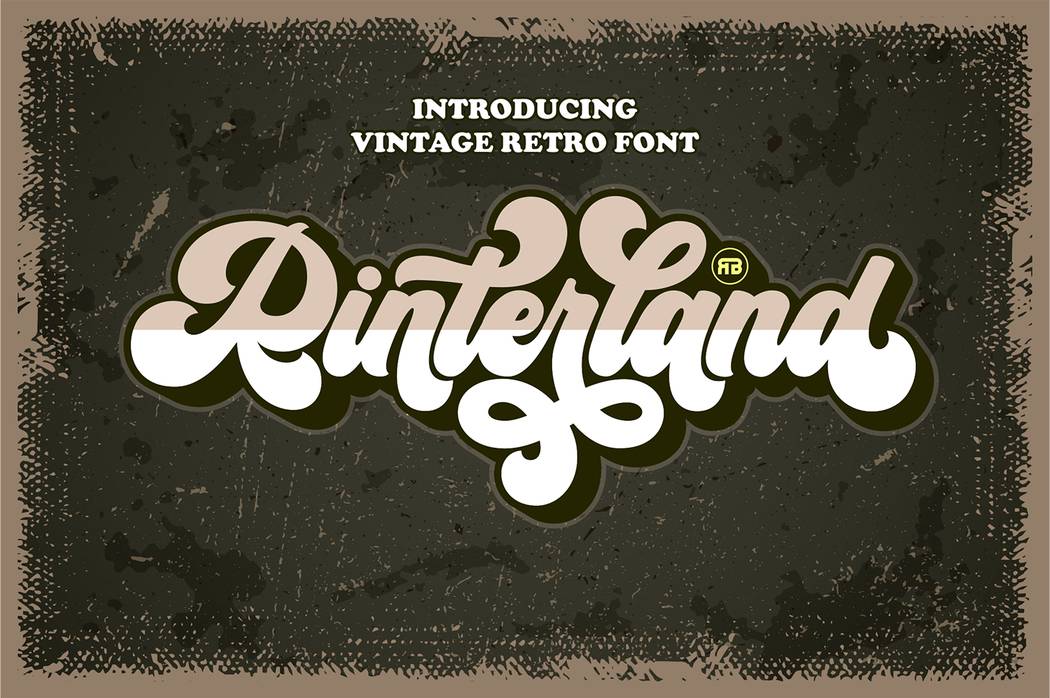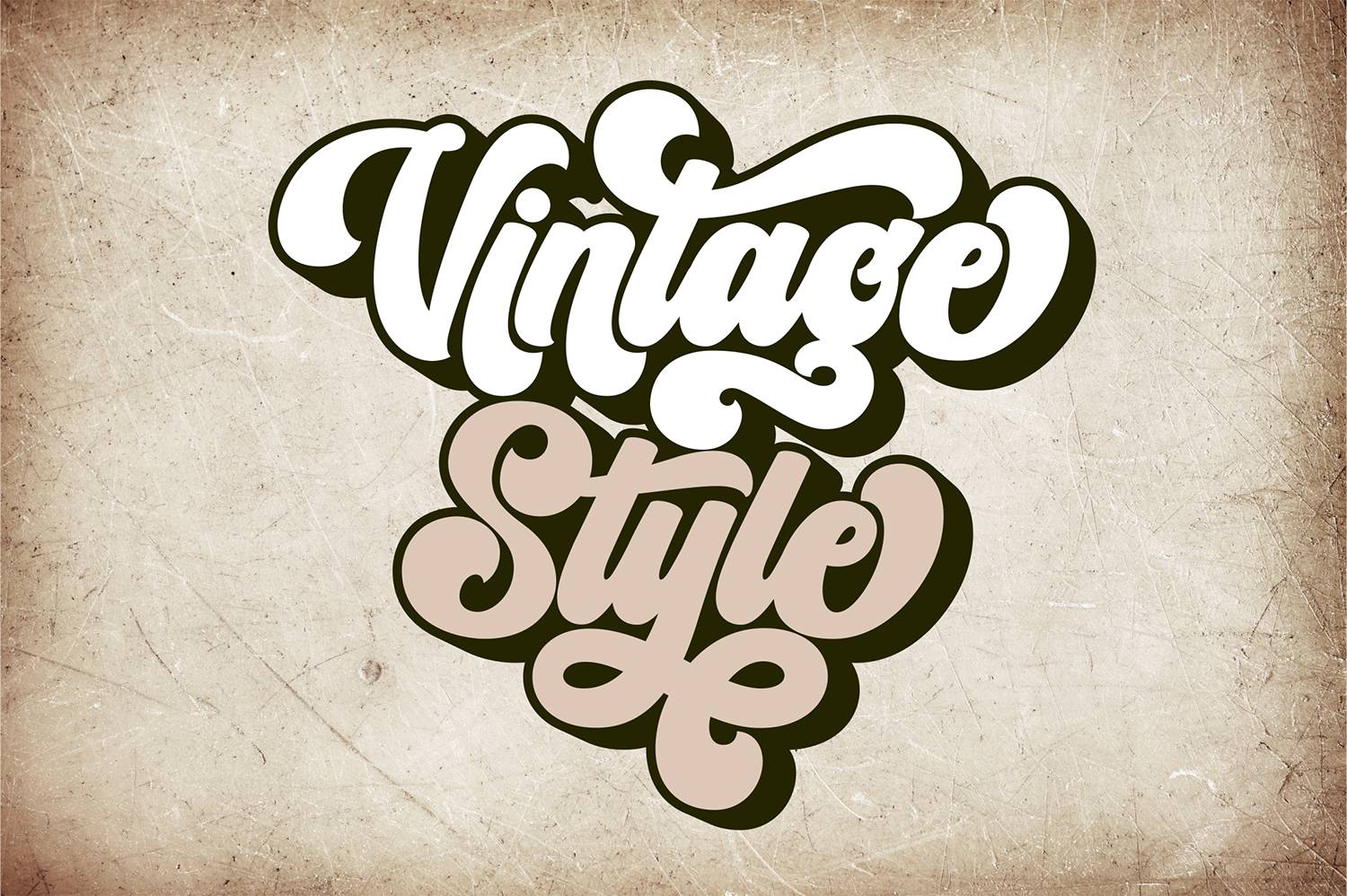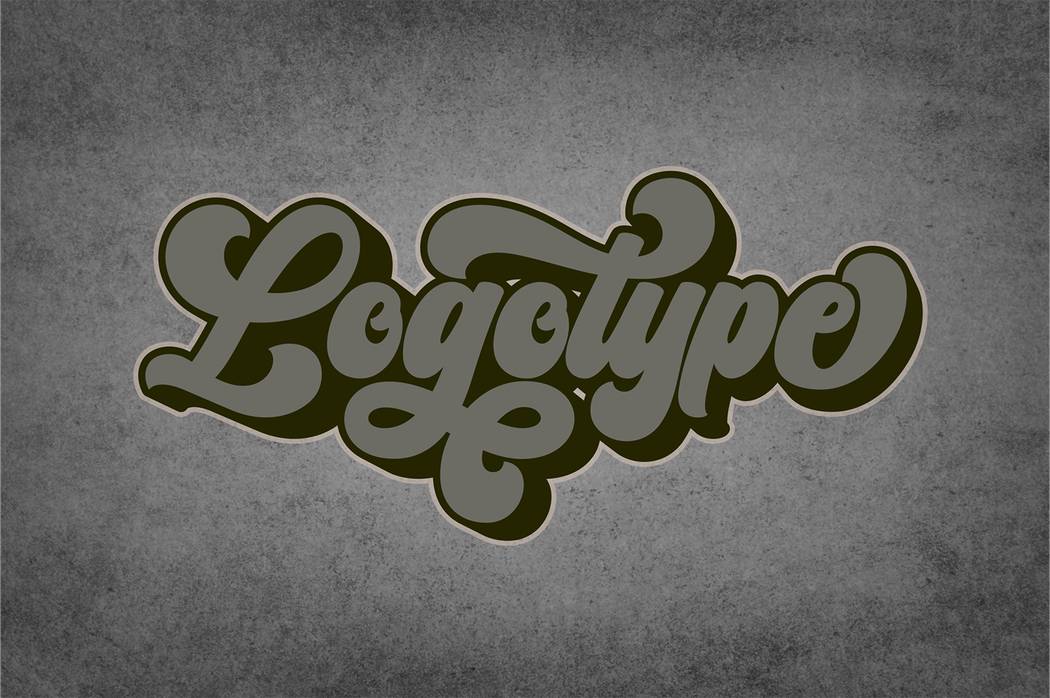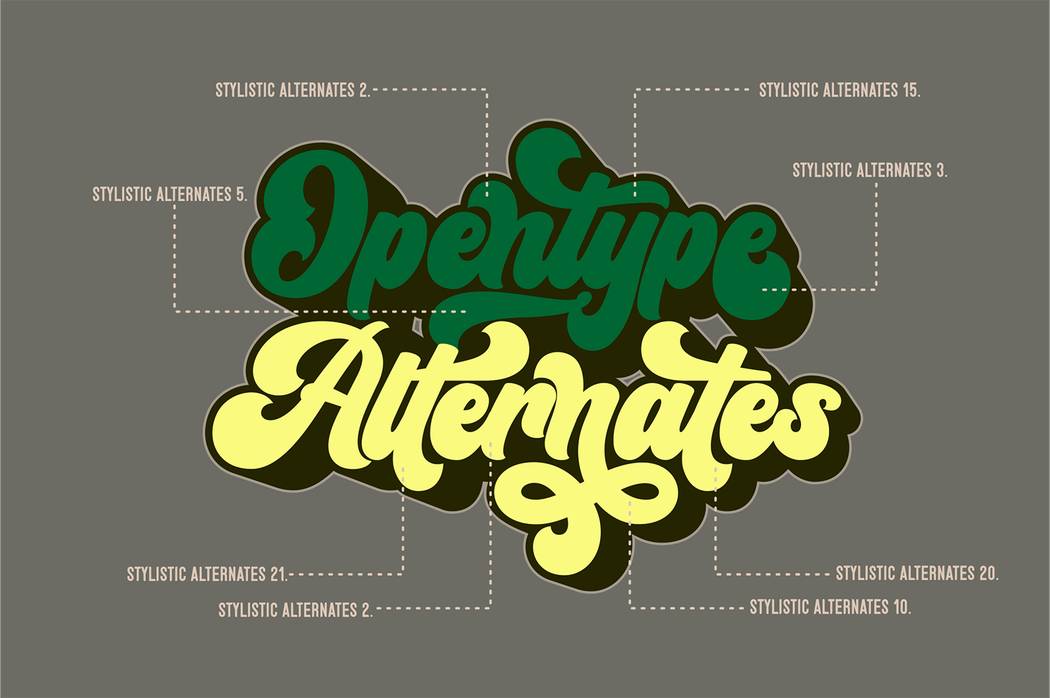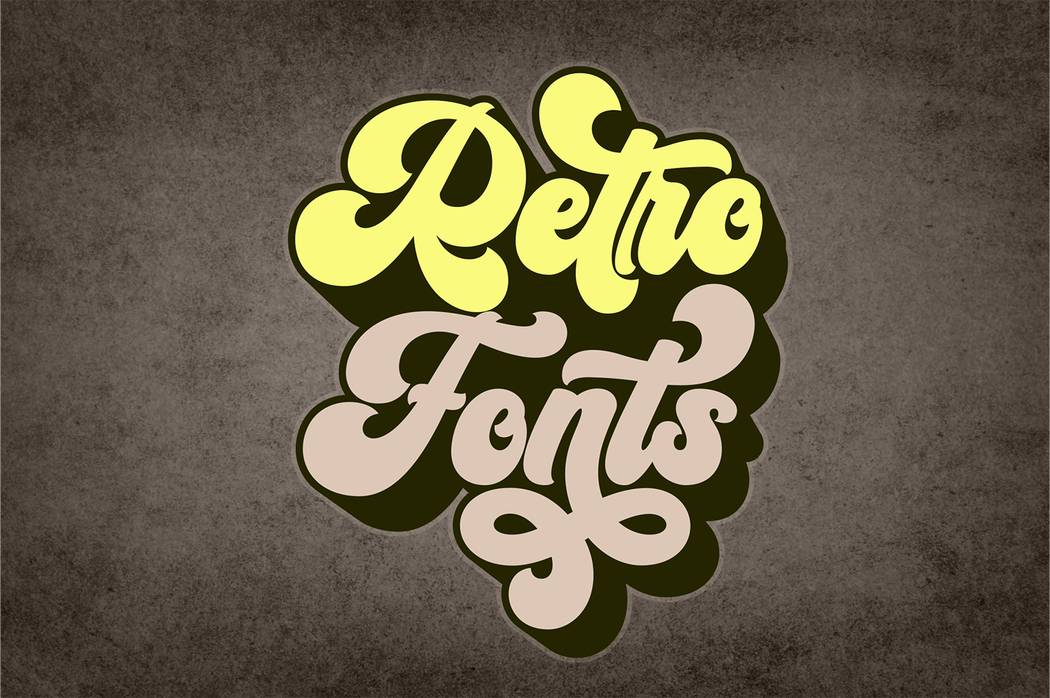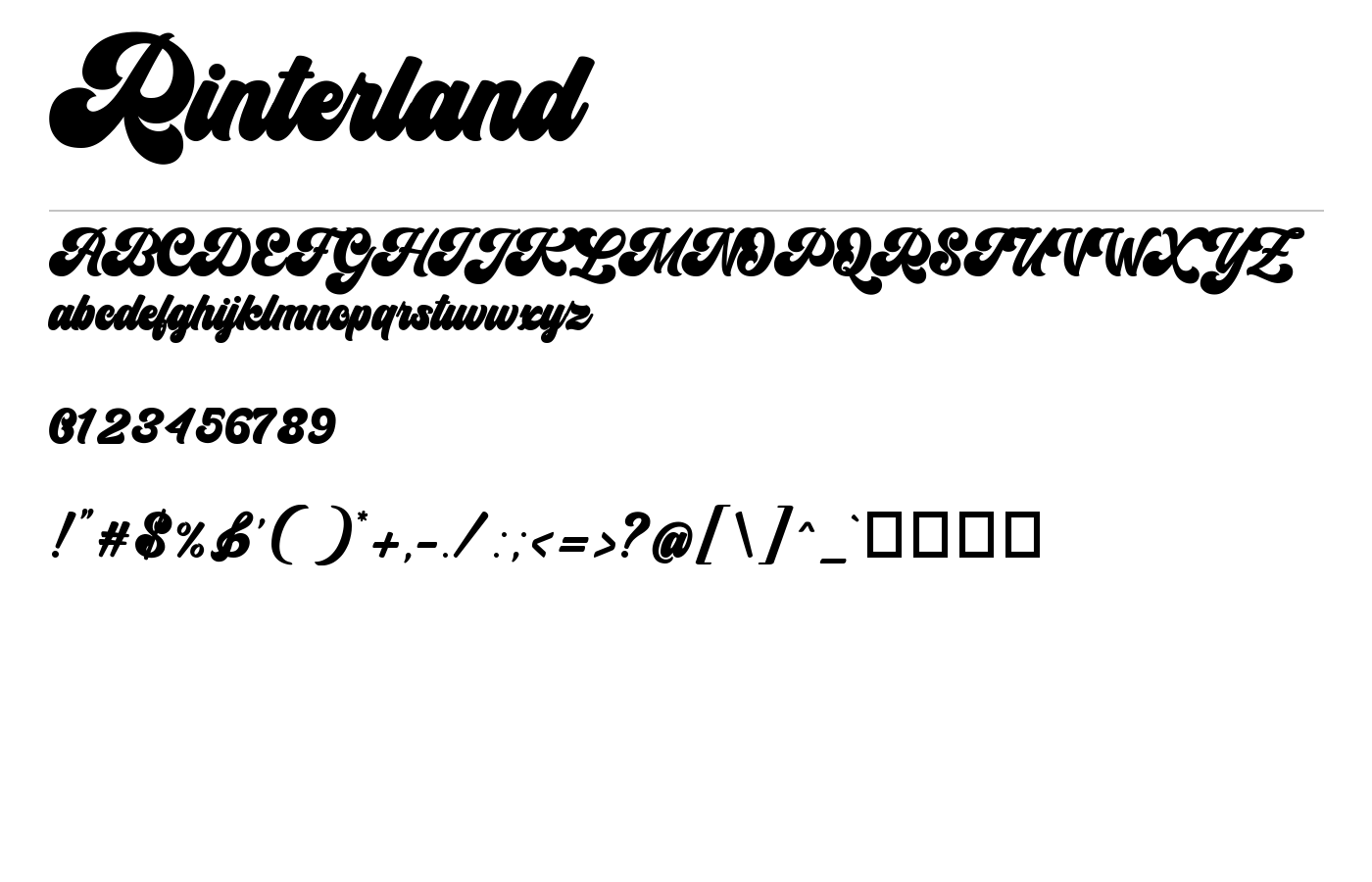
Rinterland is a bold, script-style font with thick, rounded strokes that create a playful and energetic vibe. Its dense letterforms and strong contrast make it ideal for eye-catching headlines, logos, and branding projects that want to convey a fun yet confident personality. This font works especially well in creative and informal contexts where a distinctive, lively appearance is needed.
Rinterland Font
About Rinterland Font
| Designer | MOH. MA'IN |